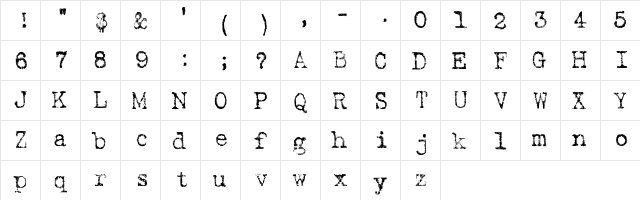
Harting2 Regular
Design Context for Harting2 Typeface
Harting2 takes a measured approach to typography — its balanced proportions and neutral character make it a reliable workhorse for both digital and print work.